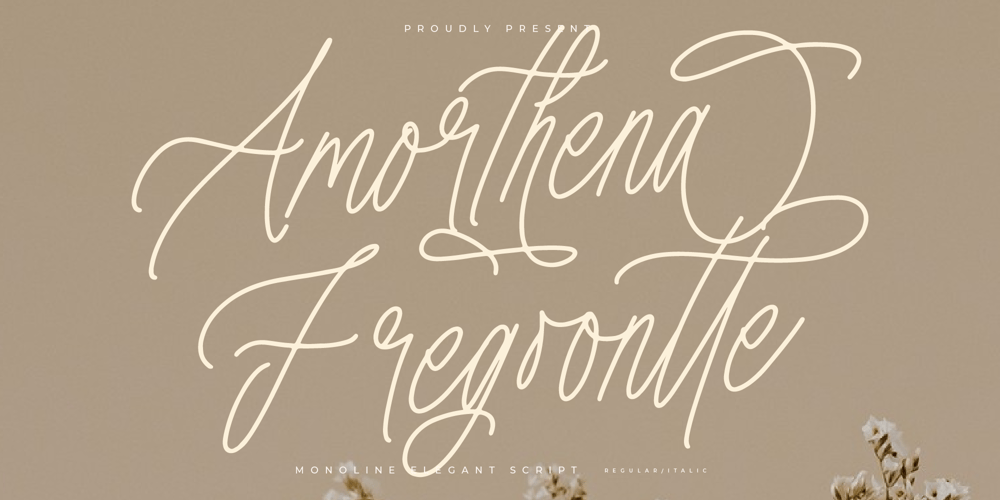
Amorthena Fregoontte Font Family was designed by Heru Utama Putra and published by Letterena Studios. Amorthena Fregoontte contains 2 styles and family package options. Amorthena Fregoontte, a monoline script font, radiates elegance with its refined strokes and sophisticated design. The script flows seamlessly, marrying classic style with modern simplicity. Perfect for conveying a touch of class, this font adds a timeless charm to invitations, branding, and upscale designs.